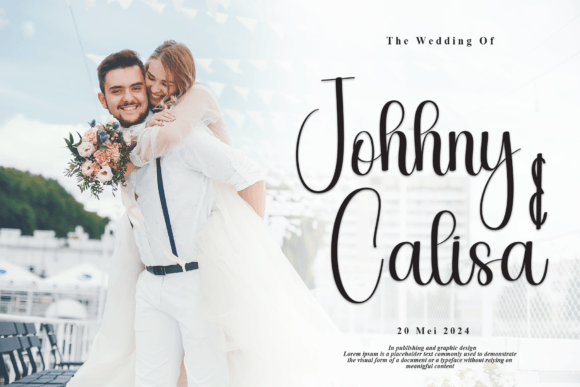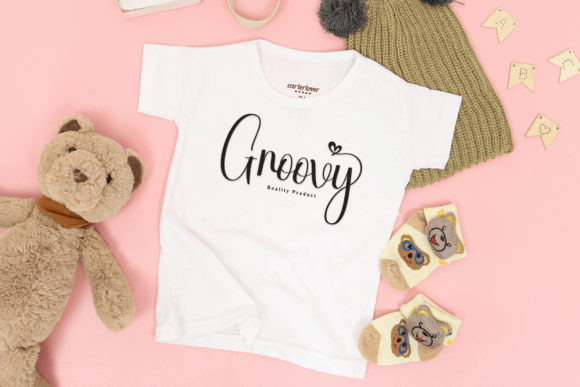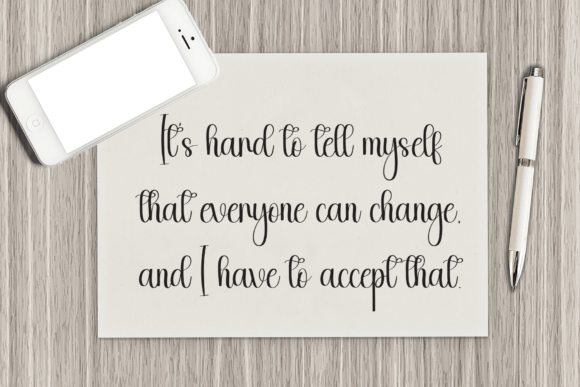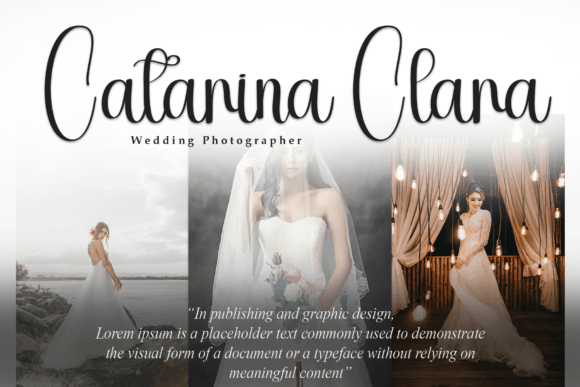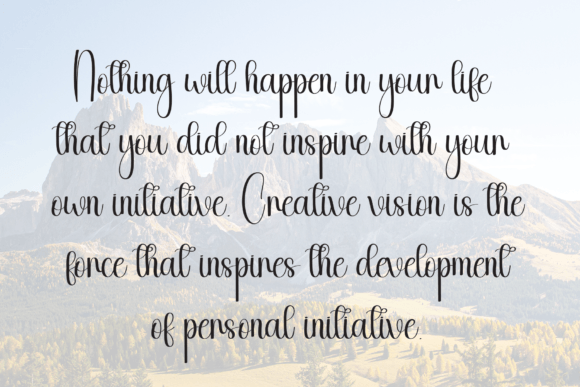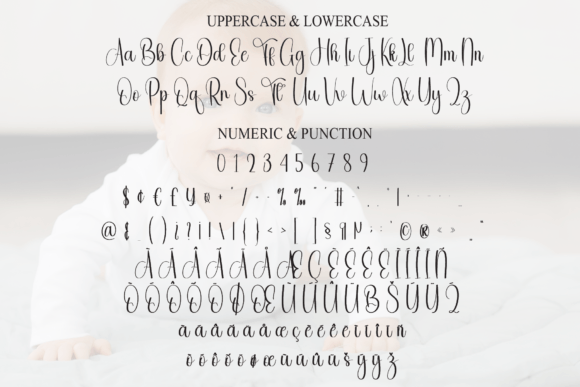
Discover the Charm of Big Baby Font: A Whimsical Addition to Your Designs
I’ll never forget the moment I stumbled upon the perfect font for a wedding invitation project. I had been searching for what felt like hours, trying out font after font, but nothing seemed quite right. That was until I discovered Big Baby Font. Its charming, whimsical handwritten style perfectly captured the sweet and friendly sentiment I was looking for. In this article, I’ll share my experience with Big Baby Font, its features, and how to make the most of it in your designs.
A Personal Review: What I Love About Big Baby Font
Big Baby Font has quickly become one of my go-to fonts for projects that require a touch of whimsy and fun. Here are some things I love about it:
• Delightfully fun and adorable: Big Baby Font brings a playful touch to any design, making it perfect for wedding invites, greeting cards, and more.
• Easy to read: Despite its whimsical nature, Big Baby Font is surprisingly easy to read, even in smaller sizes.
• 💕 Versatile: This font can be used for a wide range of projects, from formal events to casual crafts.
While Big Baby Font is an amazing addition to any design, there are a few things to keep in mind:
• 🤔 Limited use in formal designs: While Big Baby Font is versatile, it may not be the best choice for very formal designs or projects that require a more professional tone.
• ⚠️ Glyph limitations: As with any font, there may be limitations to the glyphs and special characters available in Big Baby Font.
The Backstory of Big Baby Font
Big Baby Font was designed with the intention of creating a charming, whimsical font that captures the essence of sweetness and friendliness. Its creator aimed to craft a font that’s both fun and elegant, perfect for designers and crafters looking to add a touch of personality to their projects.
What type of designs is Big Baby Font best suited for? Big Baby Font is perfect for wedding invites, greeting cards, and any other design that requires a touch of whimsy and fun.
Is Big Baby Font easy to read? Yes, despite its whimsical nature, Big Baby Font is surprisingly easy to read, even in smaller sizes.
Are there any limitations to using Big Baby Font? As with any font, there may be limitations to the glyphs and special characters available in Big Baby Font.